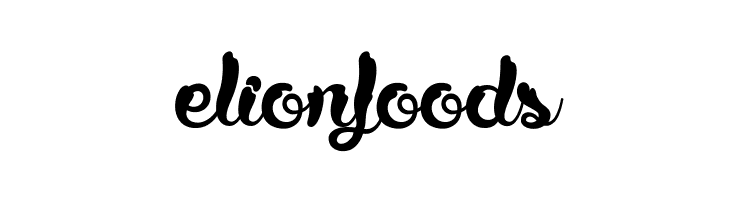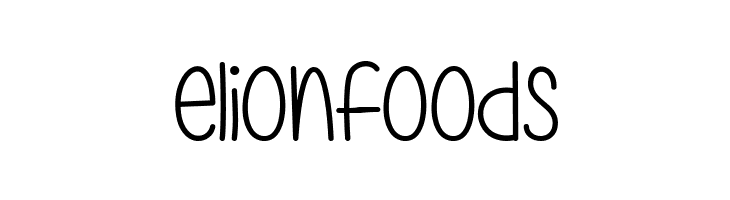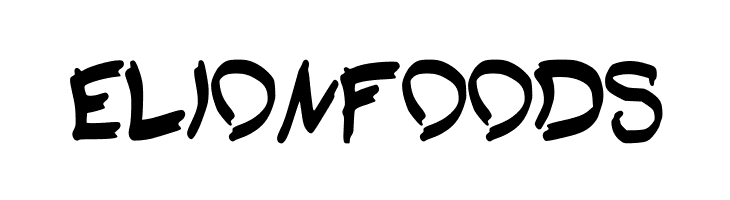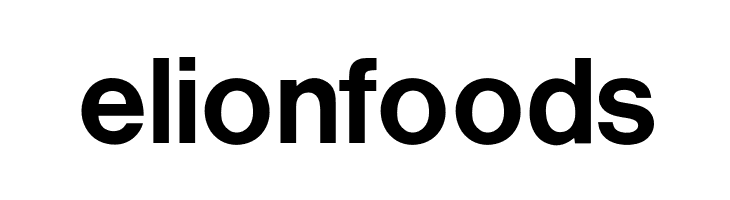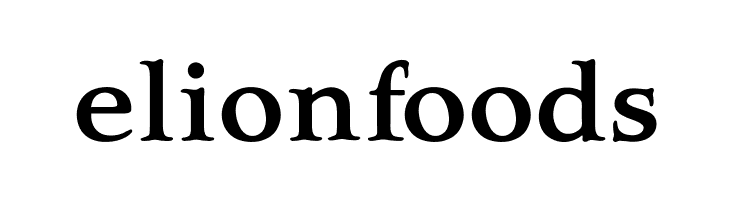
A bold, expressive script font with high contrast and ornate flourishes.
A modern, dotted font with a digital and technical aesthetic.
A spooky, Halloween-themed font with dripping, cobwebbed characters.
A modern, geometric font with clean lines and a minimalist design.
A playful, rounded handwritten font with smooth, consistent strokes.
A bold, hand-drawn font with high contrast and dynamic character shapes.
A modern, light sans-serif font with clean lines and a minimalist style.
A bold, modern sans-serif font with clean lines and geometric structure.
A classic serif font with medium weight and elegant flared serifs.